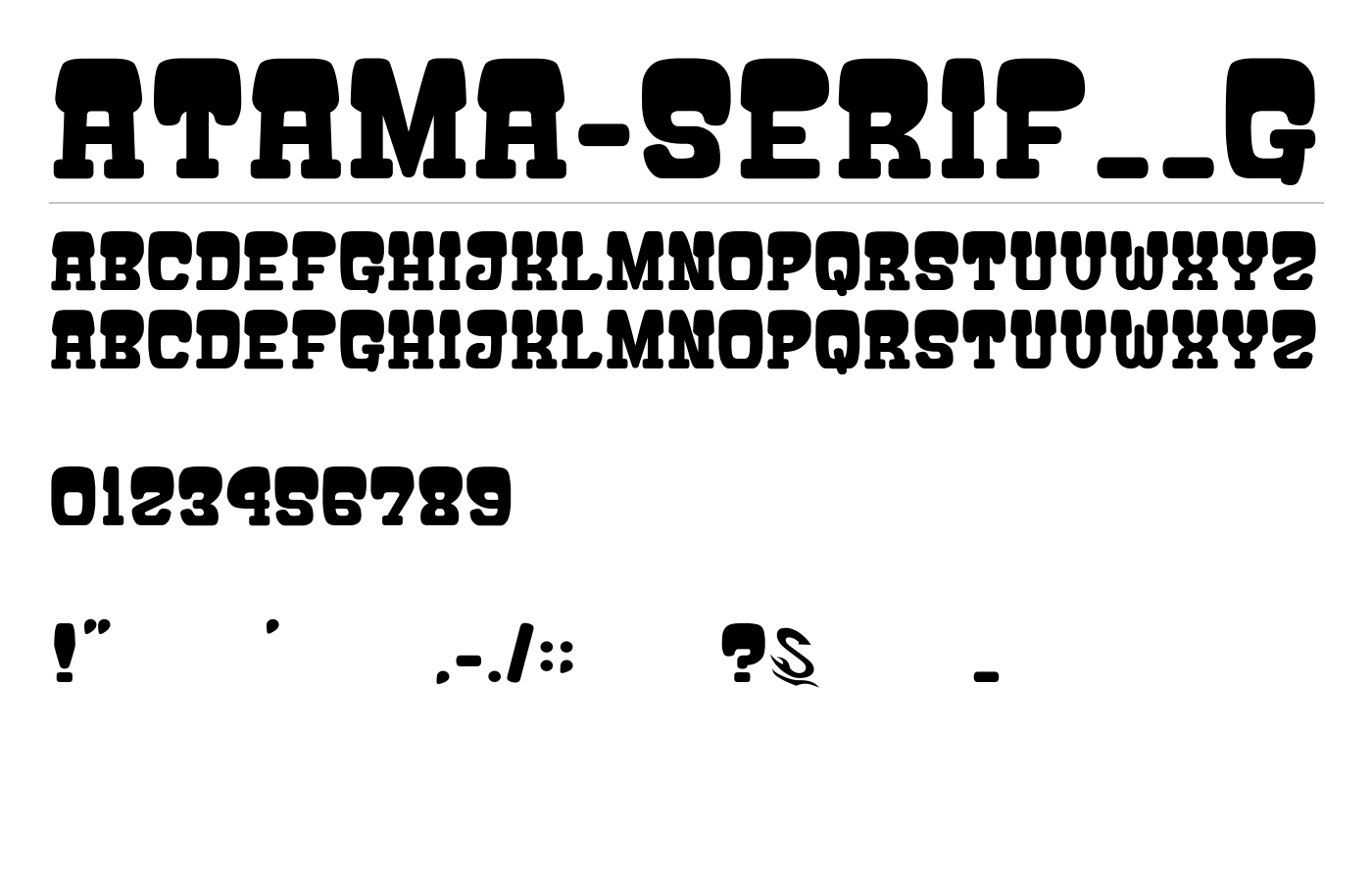
ATAMA-SERIF__G is a bold, condensed slab serif font with strong, rounded serifs and a solid, sturdy appearance. Its playful yet robust style makes it perfect for vintage or western-themed designs, logos, and headlines that need to grab attention with a unique character. This font stands out in posters, packaging, and branding where a confident and distinctive personality is desired.
ATAMA-SERIF__G Font
About ATAMA-SERIF__G Font